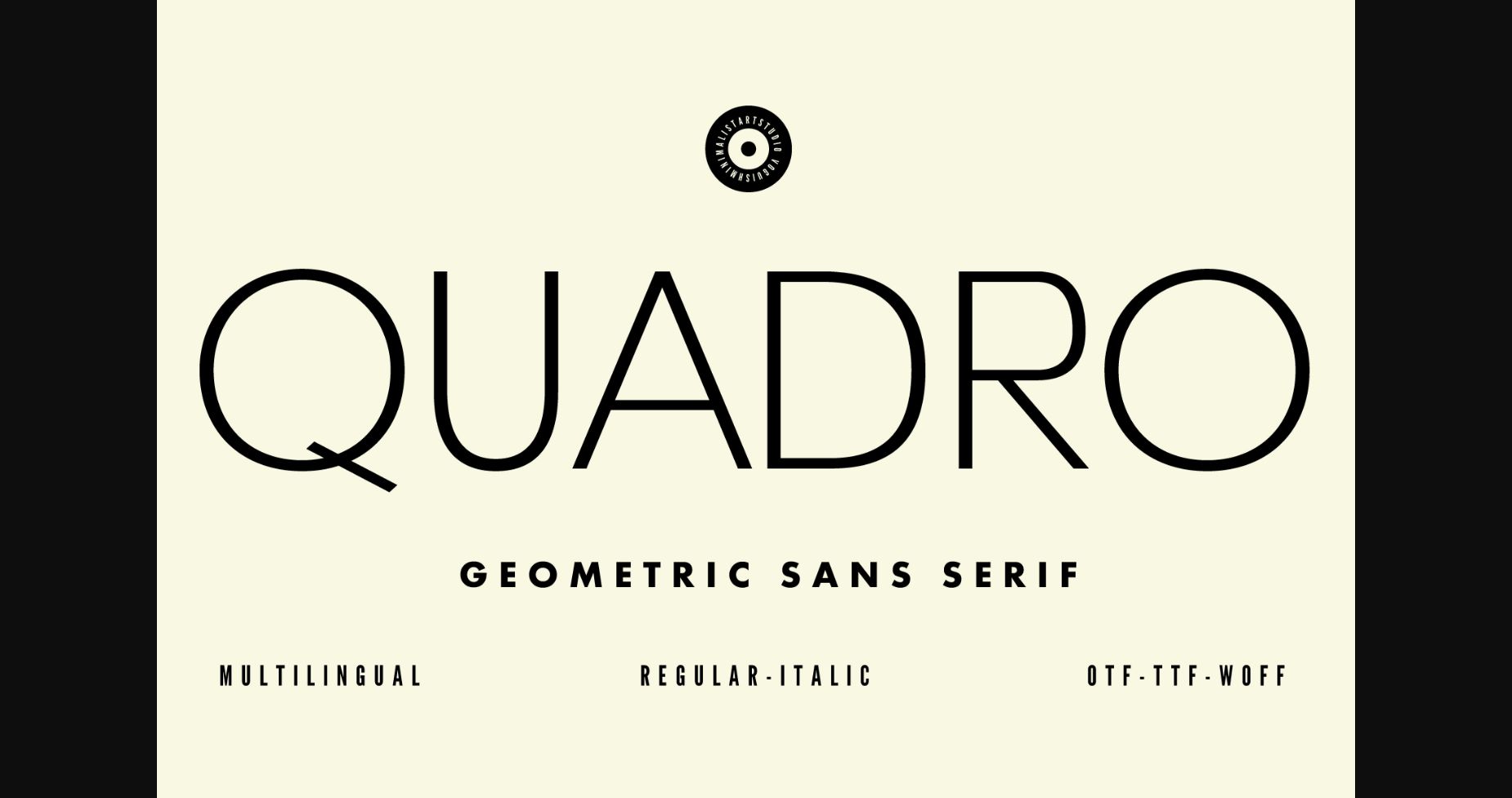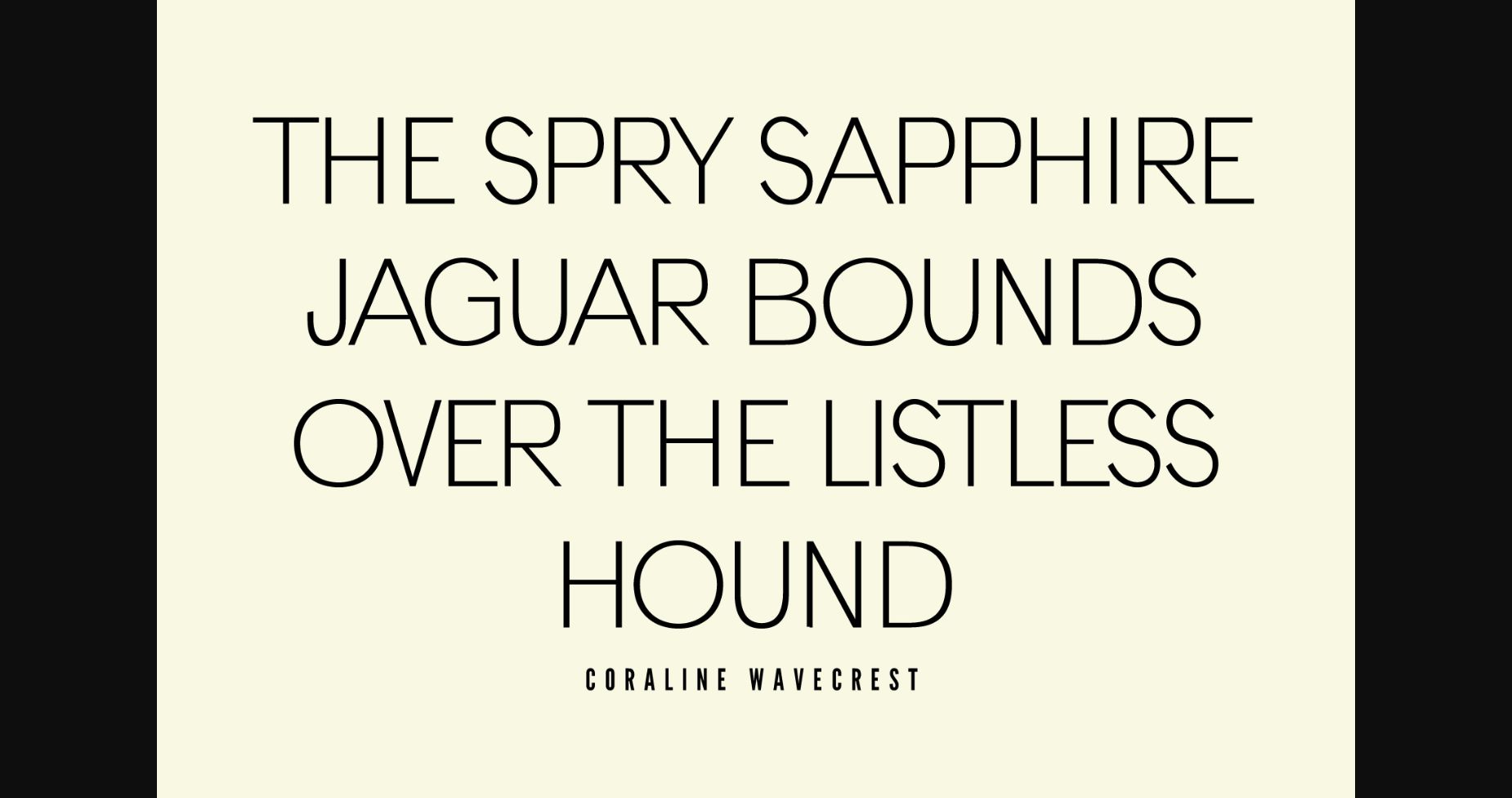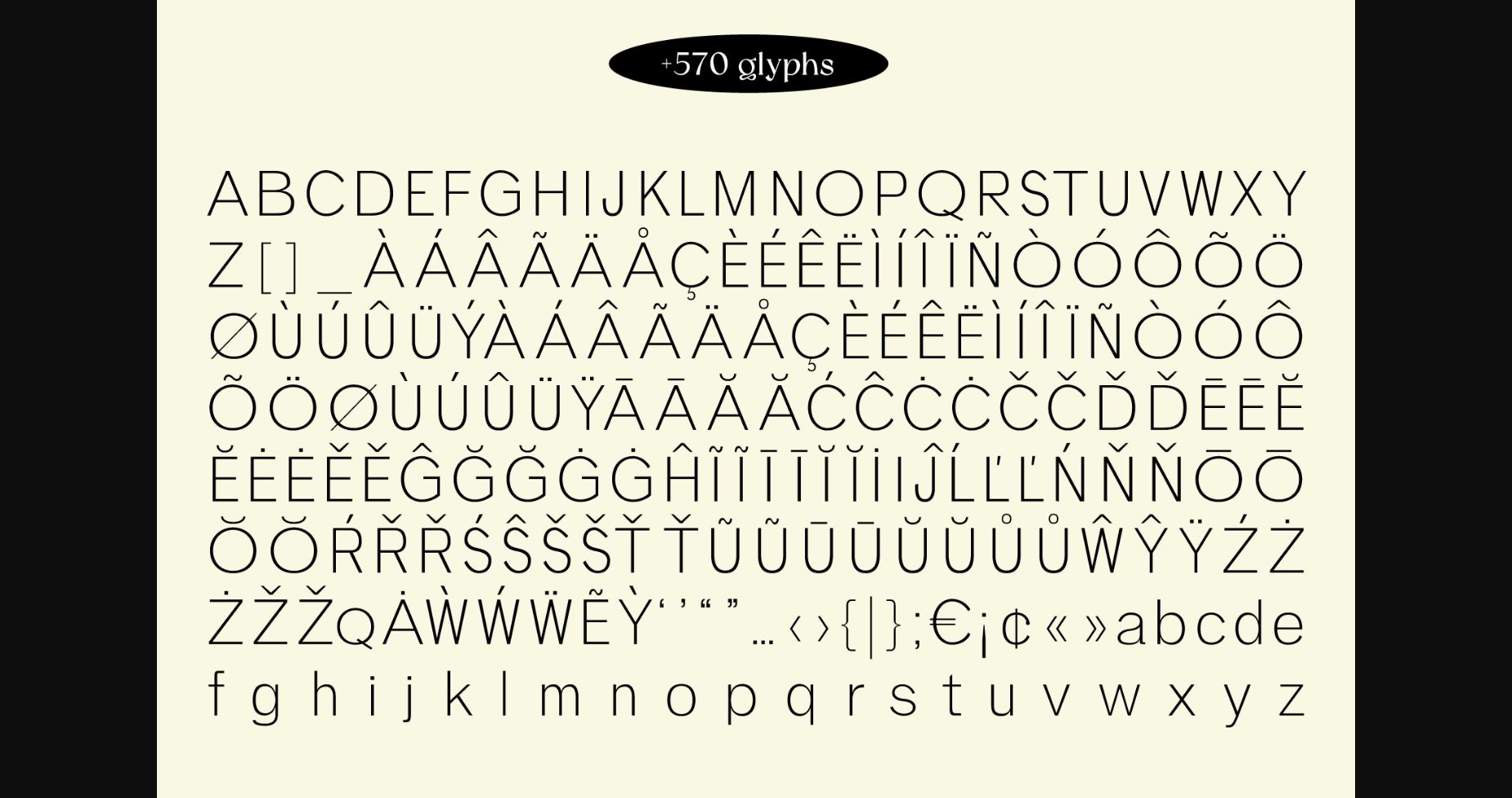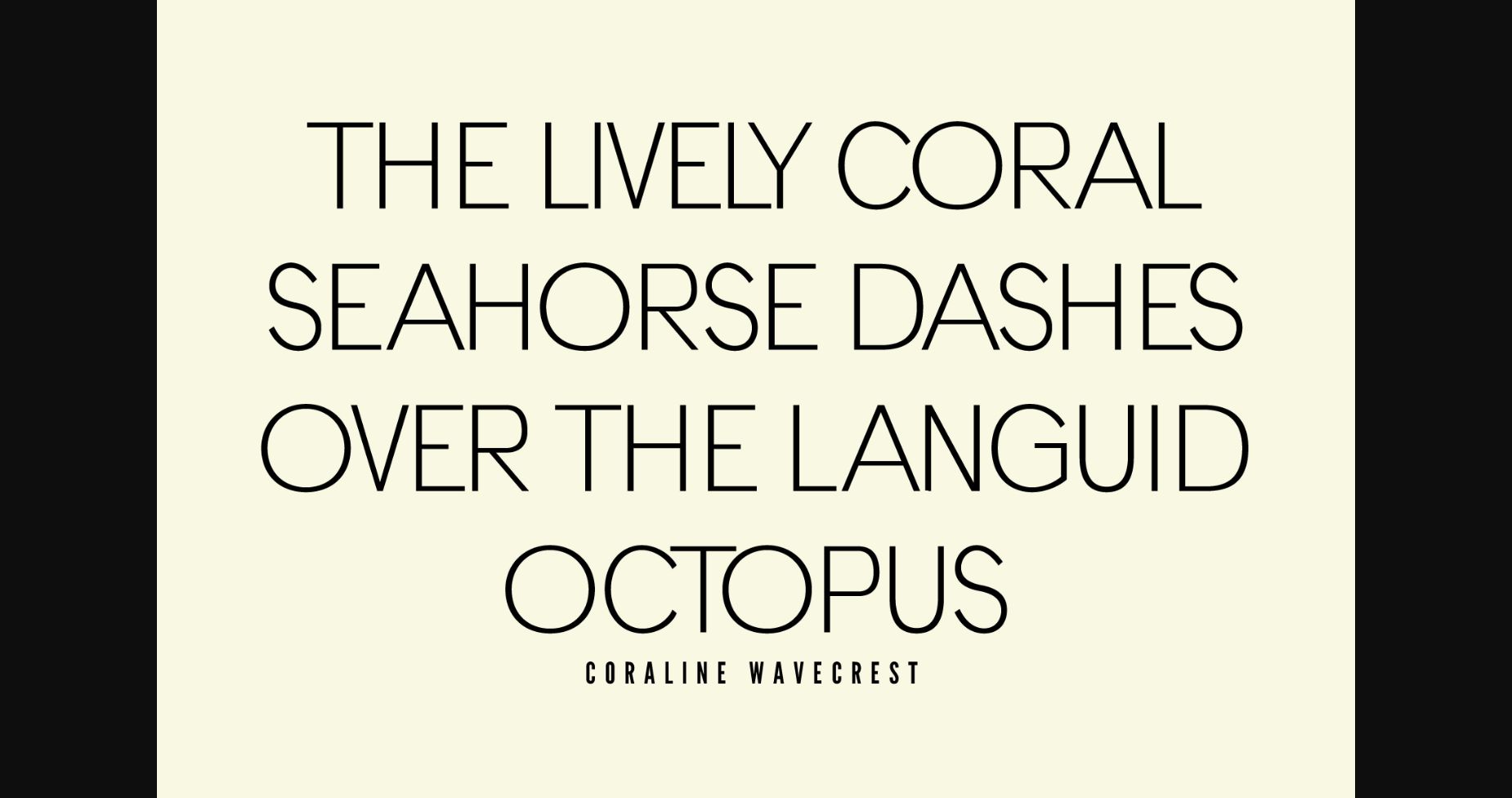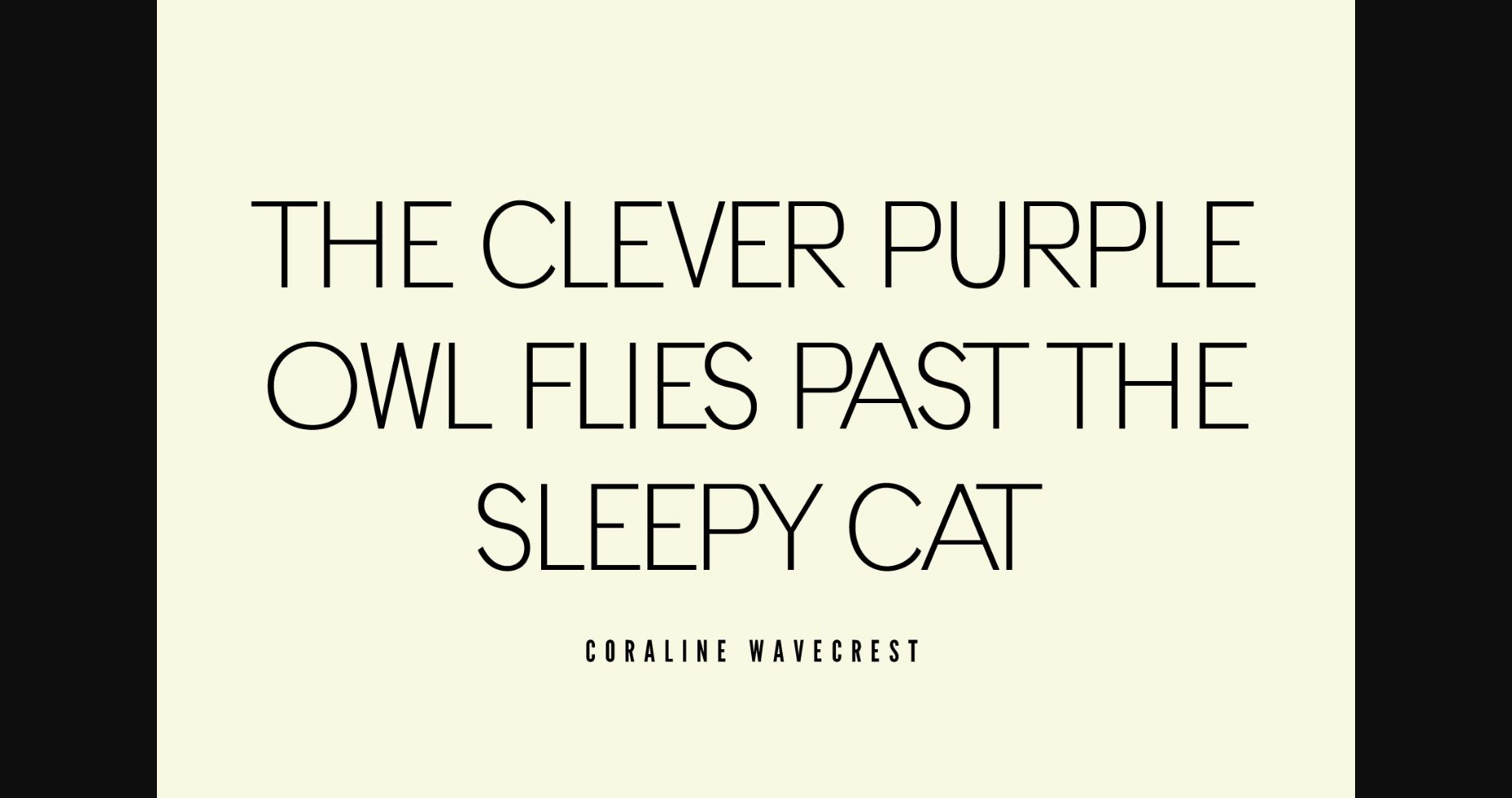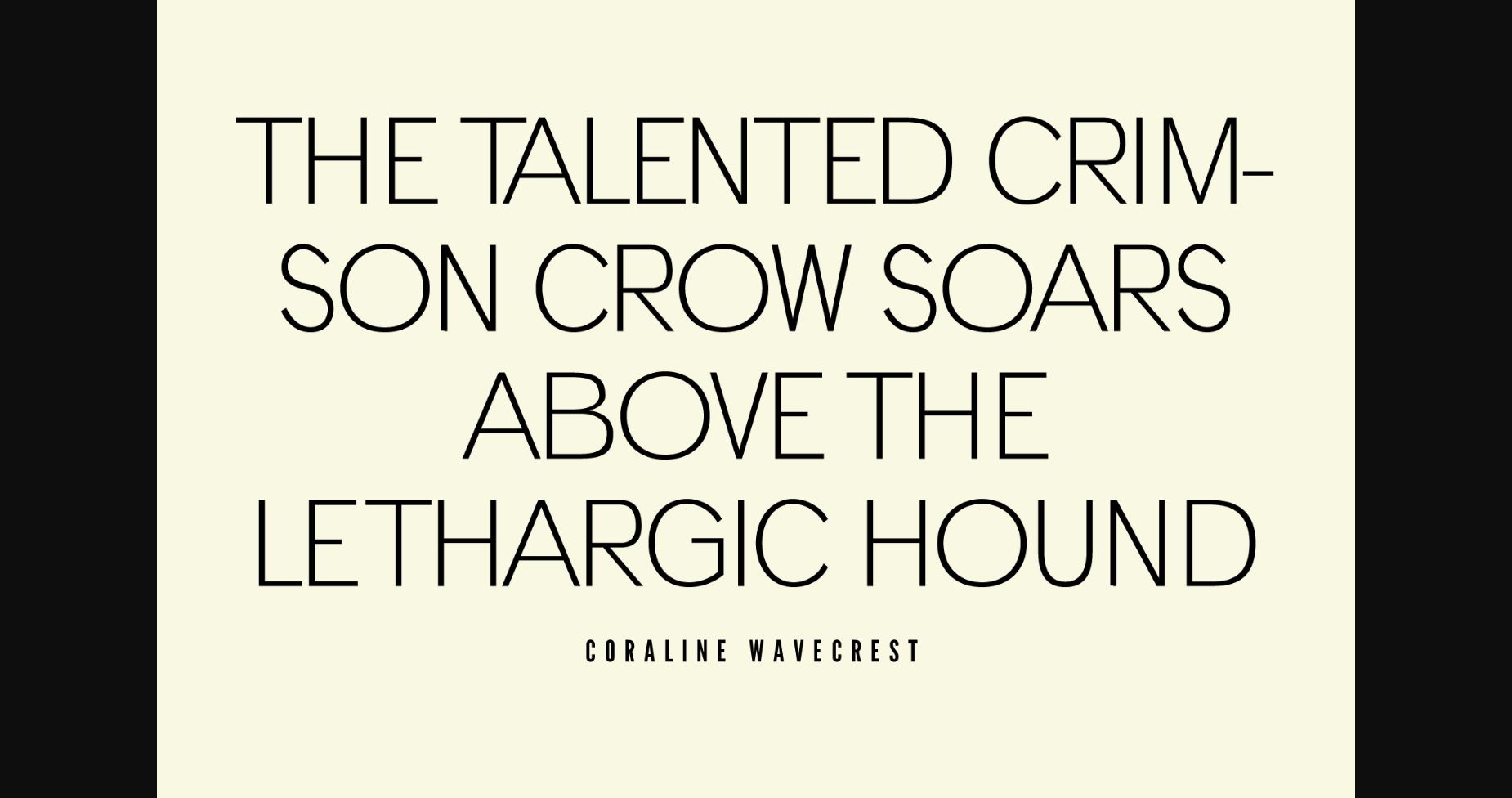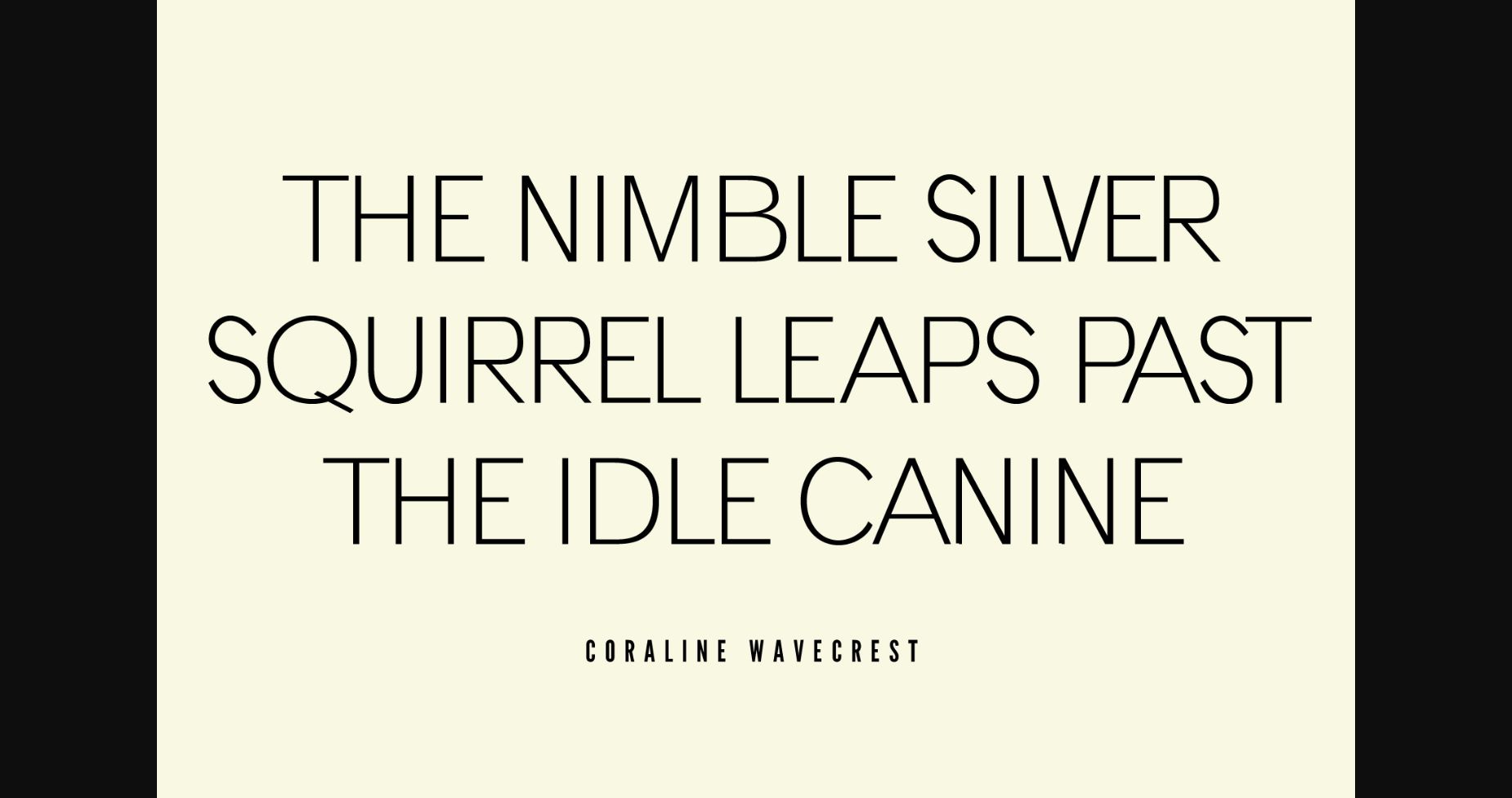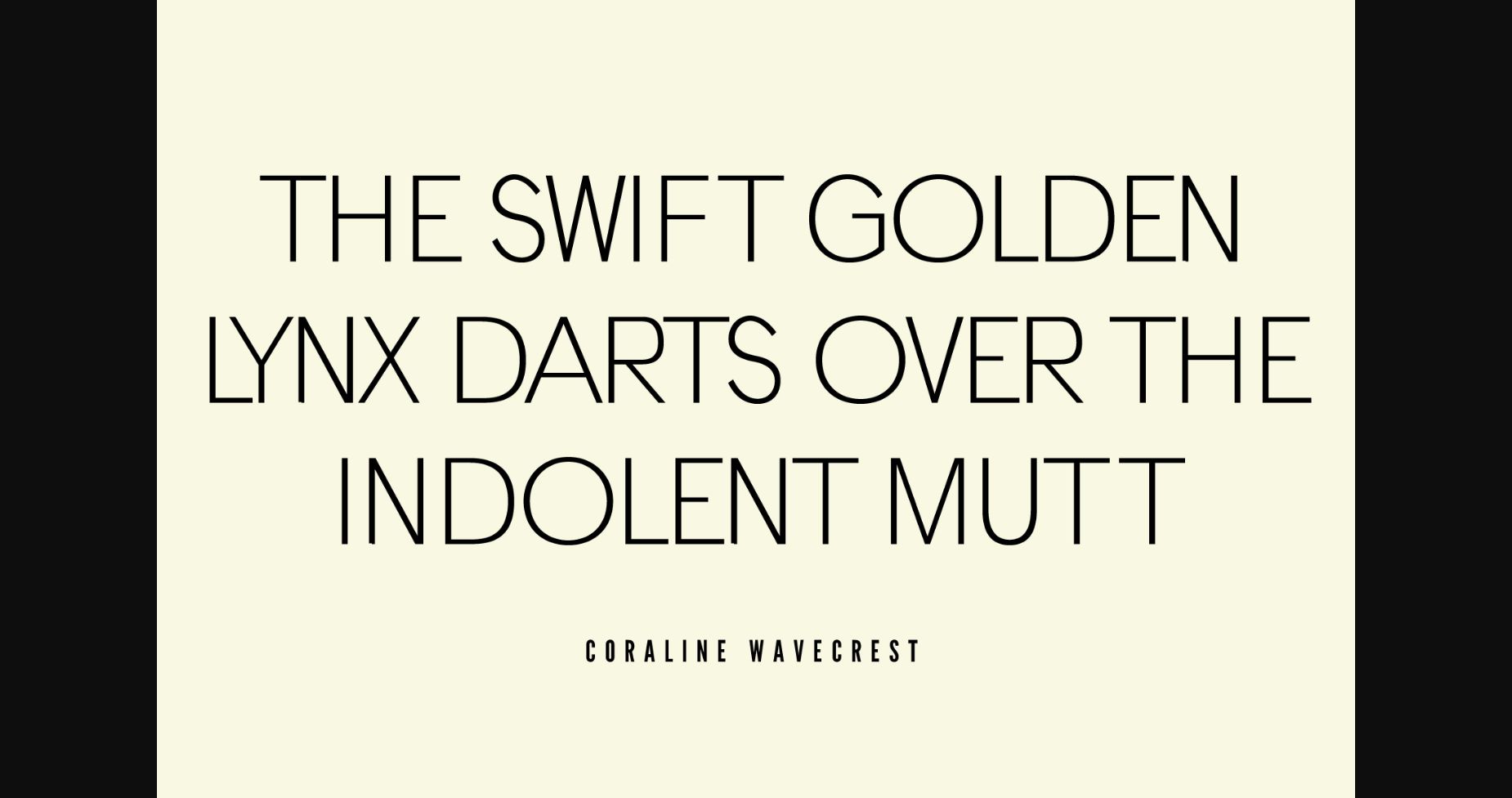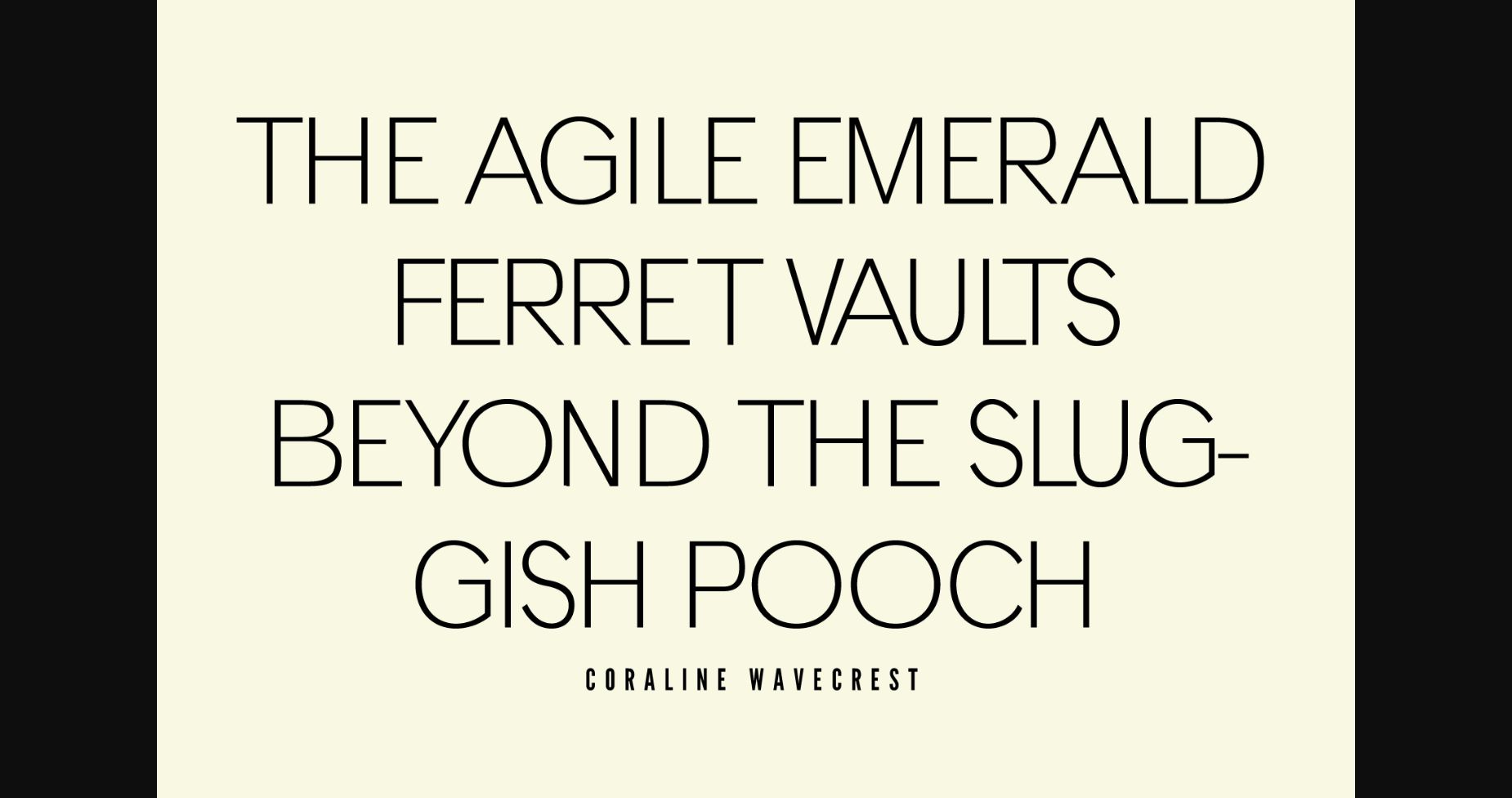
HomeSans Serif FontsQuadro Font Sans Serif Fonts Quadro Font FacebookXPinterestWhatsApp 1 of 11 ... Quadro Font Poster 2... Quadro Font Poster 3... Quadro Font Poster 4... Quadro Font Poster 5... Quadro Font Poster 6... Quadro Font Poster 7... Quadro Font Poster 8... Quadro Font Poster 9... Quadro Font Poster 10... Quadro Font Poster 11... About Quadro Font Quadro is an elegant and bold serif font. Fall in love with its incredibly versatile style and use it to create gorgeous wedding invitations, beautiful stationary art, eye-catching social media posts, and much more! DOWNLOAD NOW People also explored Yasuragi Carol Adelina Font Henju Font Hey Baby Font Hugheid Font Sliced Tomato Font Swirl Sensations Font Halivelavierta Font Lock It Up Font 291 0 TagsQuadroQuadro Font Previous articleRidtype Pro FontNext articleMore Sunny Font LEAVE A REPLY Cancel reply Comment: Please enter your comment! Name:* Please enter your name here Email:* You have entered an incorrect email address! Please enter your email address here Website: Save my name, email, and website in this browser for the next time I comment. Personal Use Free Heartburn Personal Use Free Read more about this font Airmole Personal Use Free Read more about this font Colombia Personal Use Free Read more about this font Adelaide Personal Use Free Read more about this font BLOG Free Fonts Risk: Why Free Fonts Can Be Dangerous for Designers Free Fonts Risk: Why Free Fonts Can Be Dangerous for Designers Using free fonts is a common practice in web and graphic design. However, the... Fonts That Capture the Spirit of New York City To increase your work productivity, choose the most readable fonts. The 10 Best Handwriting Fonts to Add Personality to Your Designs